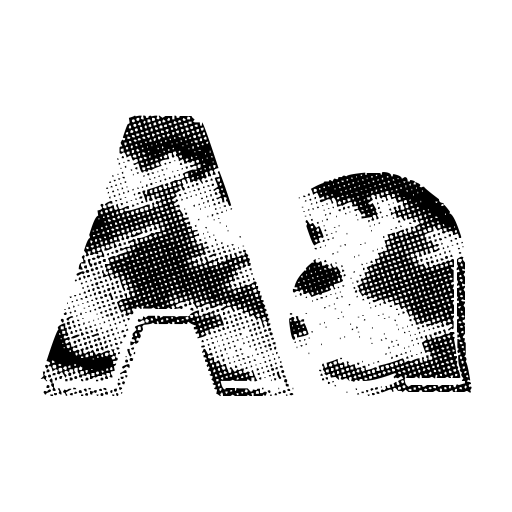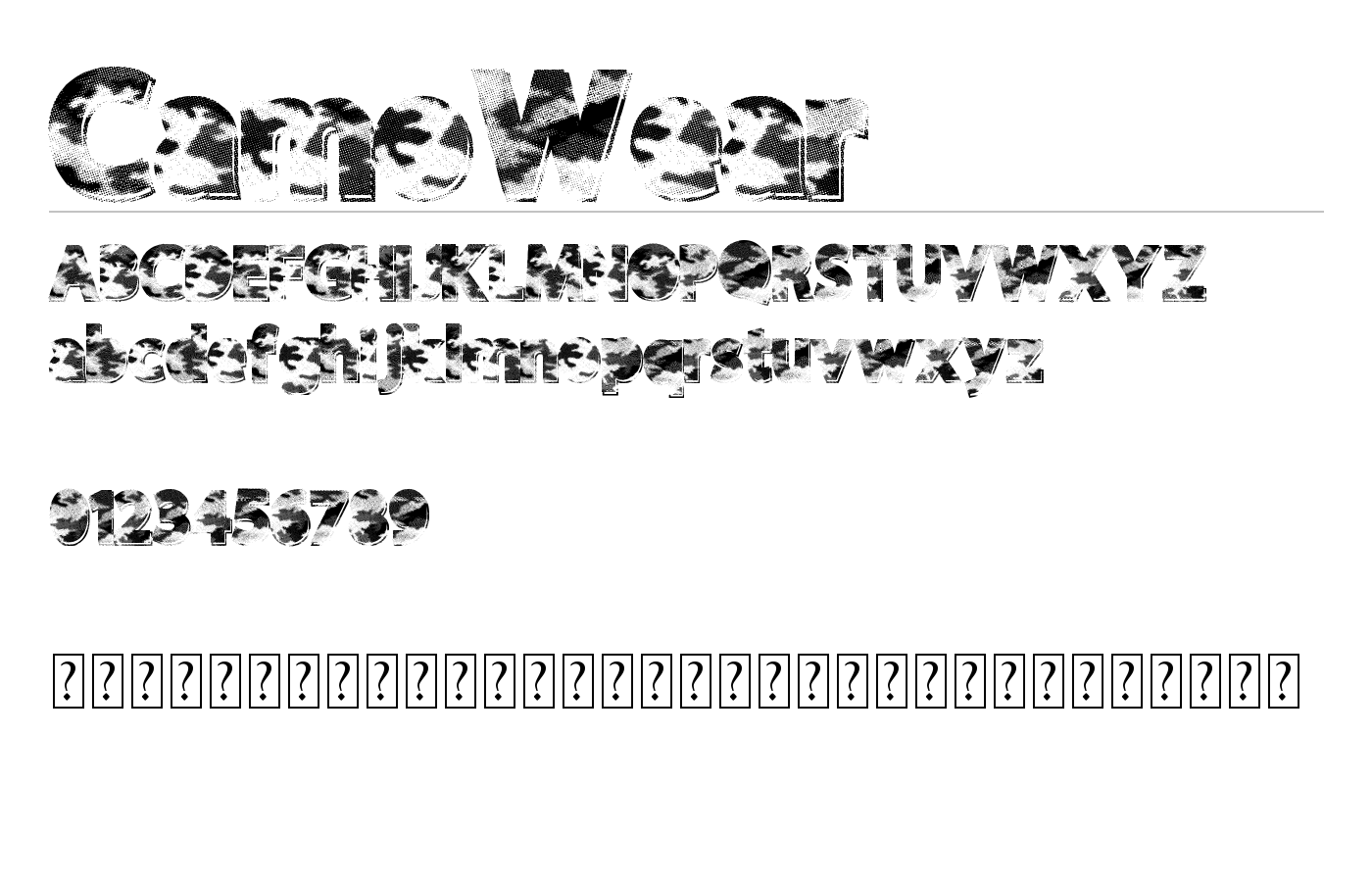
CamoWear is a bold, sans serif display font featuring a distinctive camouflage pattern within thick, blocky letters. Its strong, sturdy shapes and textured design give it a rugged, adventurous feel, making it perfect for outdoor brands, military-themed projects, and casual streetwear logos. This font works best in headlines and branding where a bold, eye-catching style is needed to convey toughness and style.
CamoWear Font